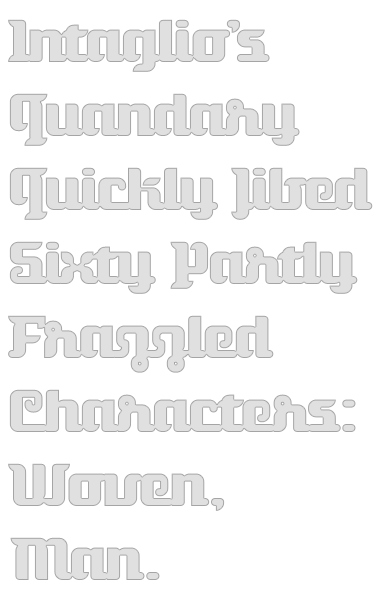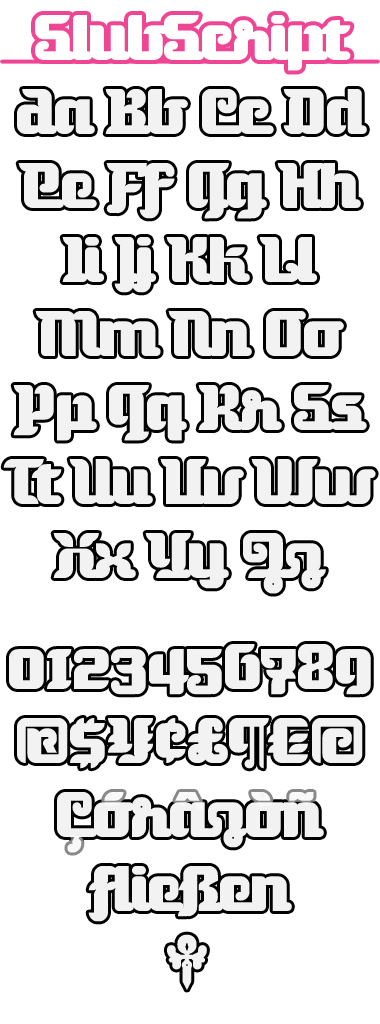
• Clone of slubgob.
I saw some stringy potential dyed in the wool of intaglio’s original and tried to draw it out. First I added one brick to the x-height; second I added little connecting, er, nubs for a very tightly spaced continuous script. From there, I was basically done, but then had very little restraint and took it to this point, which is now sort of a mishmash of styles (let’s just go ahead and rule out all caps settings right here and now ;)
I am hoping one of y’all fontstructors will chime in with the next version that really knits the job up all nice like! Or, barring that, I will try to tighten it up and continue to defer all praise to intaglio.
Edit [12/10/09]: After receiving the blessing of intaglio, I added More Latin and the first half of Extended Latin A. This fontstruction is nearing its final stitches, however I still welcome suggestions and additions. As seen in my samples below, it seems to work well with a rounded outside stroke. Be forewarned: Approximately -10 tracking and some manual kerning are a must to properly render the connected script effect. Enjoy! : )
This is really beautiful. I like everything you've done with it. Particularly your more thorough exploration of unicase properties in the caps: the cap q is particularly pleasing. Hot damn, it looks like some kind of real font!
THIS is what makes FontStruct so endlessly fascinating. I adore it. Did you raise the x-height from Subglub a notch?
This is wonderful. You are wizards, both. 10/10
@intaglio: So glad you dig it! My modifications are there, but they’re effectively minor. I still feel like this is your baby. Be proud, then, and feel more than entitled to carry it forward.
Btw, thanks for asking about the x-height increase. I failed to mention this (or really any) salient and coherent detail in my own process’s description (x_fallible head slap_x). Remedied above.
Comment by William Leverette (will.i.ૐ) 18th november 2009
This is awesome. Certainly the fontstruction, but more so the constant goodnaturedness of intaglio and your own wit, wisdom and wonder. You've taken something delightful and made it inspired. Thanks for caring and sharing.
Comment by thalamic 18th november 2009
@will.i.ૐ: this is collaboration and I love it. You've made something more of the font than I could on my own, and now it's a killer. It was the same when thalamic and I collaborated on a font: what he brought to it was surprising and delightful.
Comment by intaglio 18th november 2009
I have to agree with everyone else.
The font, the collaboration, the camaraderie, the respect...they are all great things to witness.
Thanks guys.
Comment by aphoria 19th november 2009
Great work intaglio and will.i.ૐ.
I must confess that I had a knee-jerk reaction, when the clone thief was discovered, and changed my licences. It felt wrong at the time and will.i.ૐ's words about tag's generosity in sharing make me think that I should change my licences back. In the meantime, if anyone ever wants to improve any of my meagre offerings, they are welcome to send me a message and I will be pleased to share that font.
Luscious oldstyle figs! You're on a roll. I'm fascinated. Keep going!
I am in love with this font!